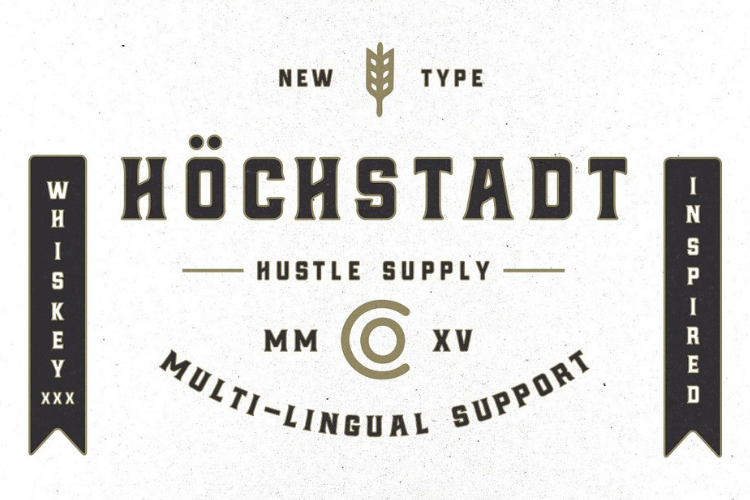
Höchstadt Font
Introducing Höchstadt,
A Multi-Lingual (Western European Supported) Typeface with 4 Styles. Höchstadt also includes CSS Webkits for each style for use on web. Inspired by Old Whiskey Labels, Höchstadt is a must have in your Type collection. It's industrial feel & multiple styles of Serif & Sans Serif with Oblique options give you a wide range of use cases for branding, bold web typography, advertising & apparel design.
If you're looking for a bold, clean, industrial typeface with personality that lends itself to a modern feel with a tip of the hat to age old brands, you've met your match. This is a multi use typeface. Something you'll use in various ways for the years to come. 4 fonts & webkits with a price tag of only $29!